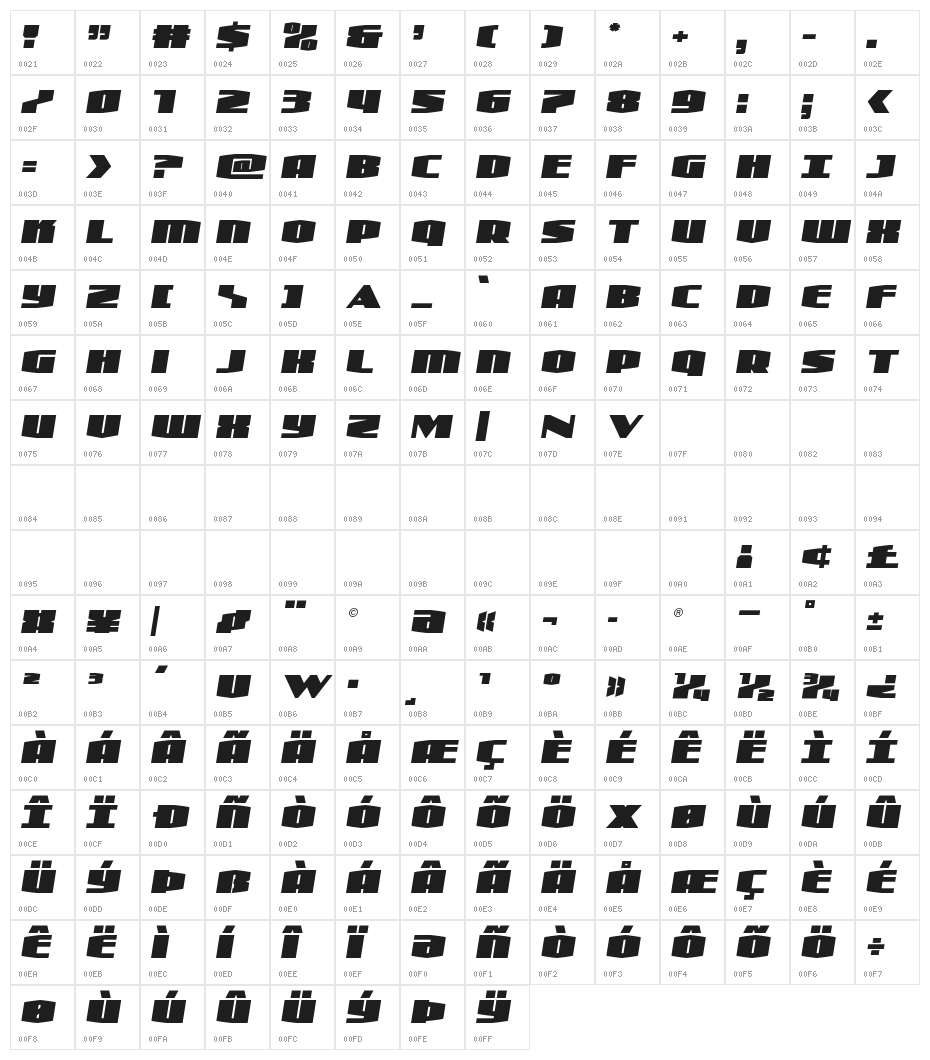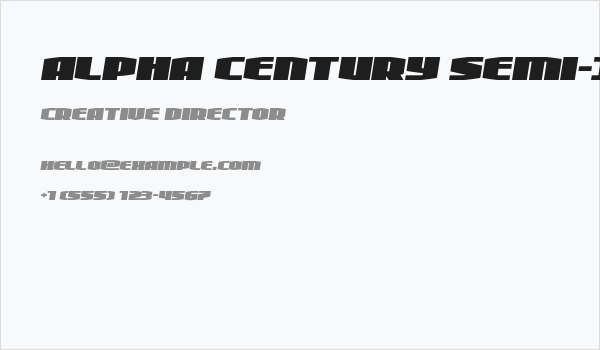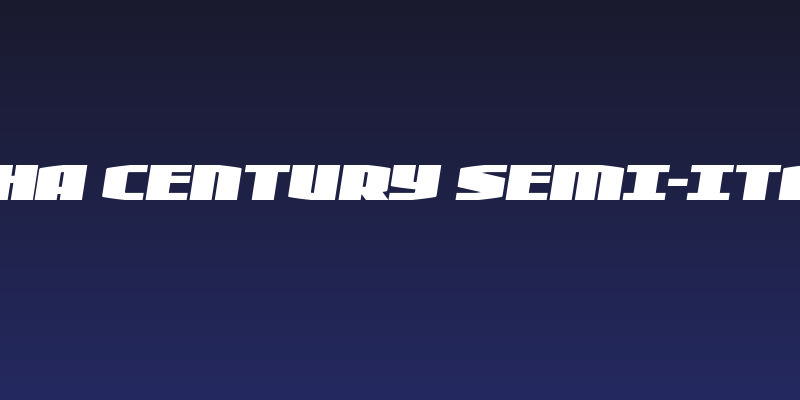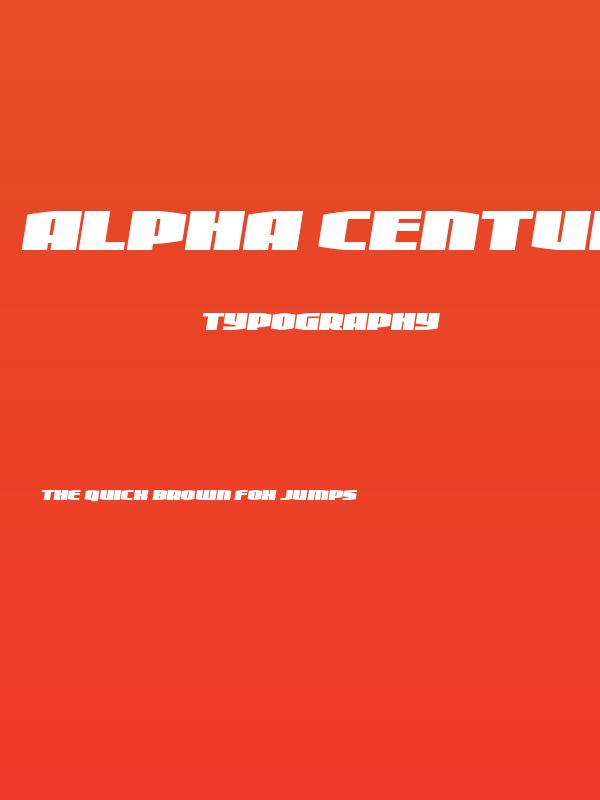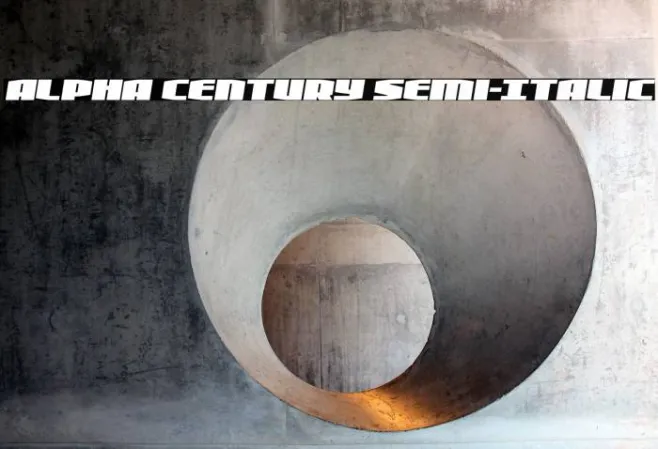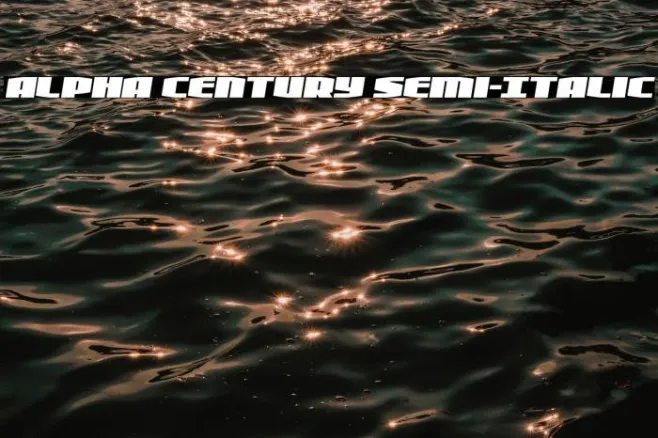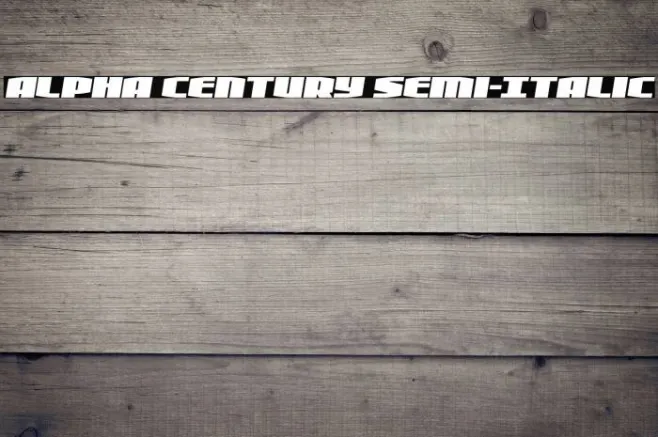
Alpha Century Semi-Italic Font
Alpha Century Semi-Italic Description
This font features a bold, futuristic design with a semi-italic slant, giving it a dynamic and forward-moving appearance. The characters are wide and angular, with sharp edges and a strong presence. The uppercase and lowercase letters maintain a consistent style, emphasizing the geometric and modern aesthetic. The numbers and special characters follow the same bold and angular design, ensuring uniformity across all elements. This font is ideal for projects that require a strong, impactful visual statement.
| Proposed Projects | Ideal for sci-fi themed posters, video game titles, technology branding, and futuristic event invitations. |